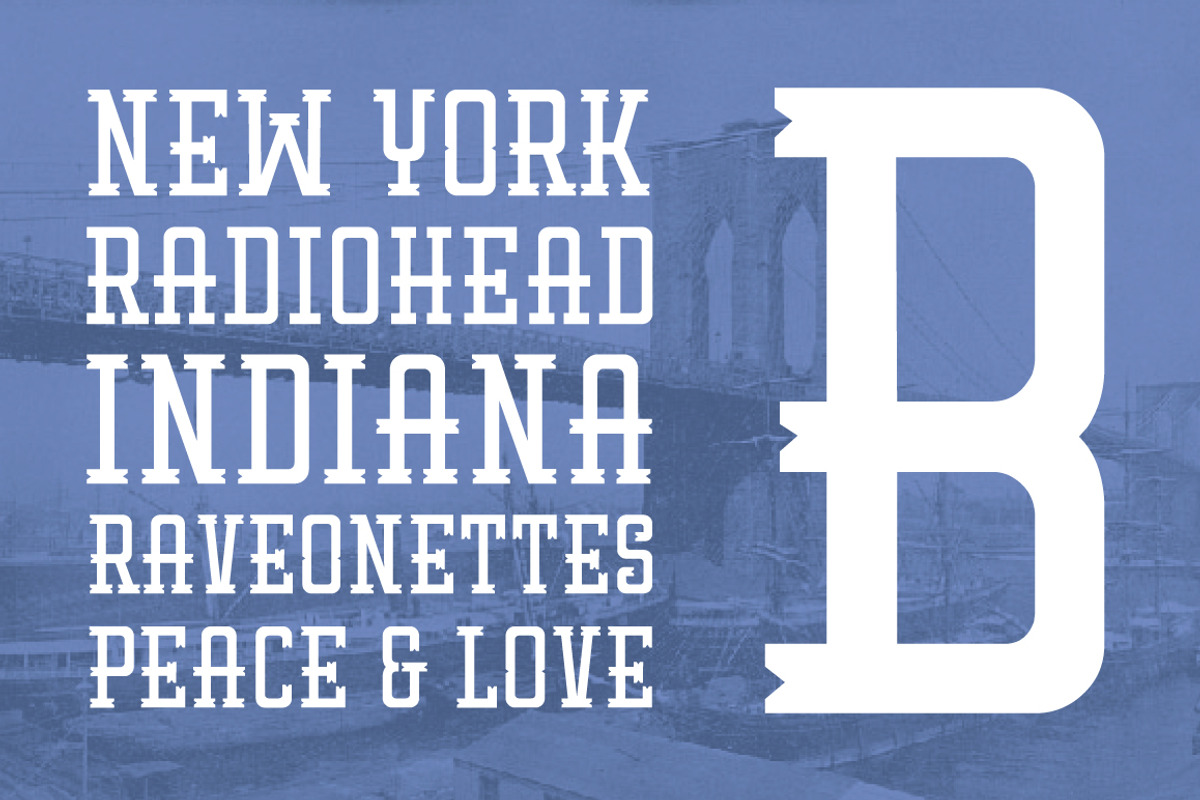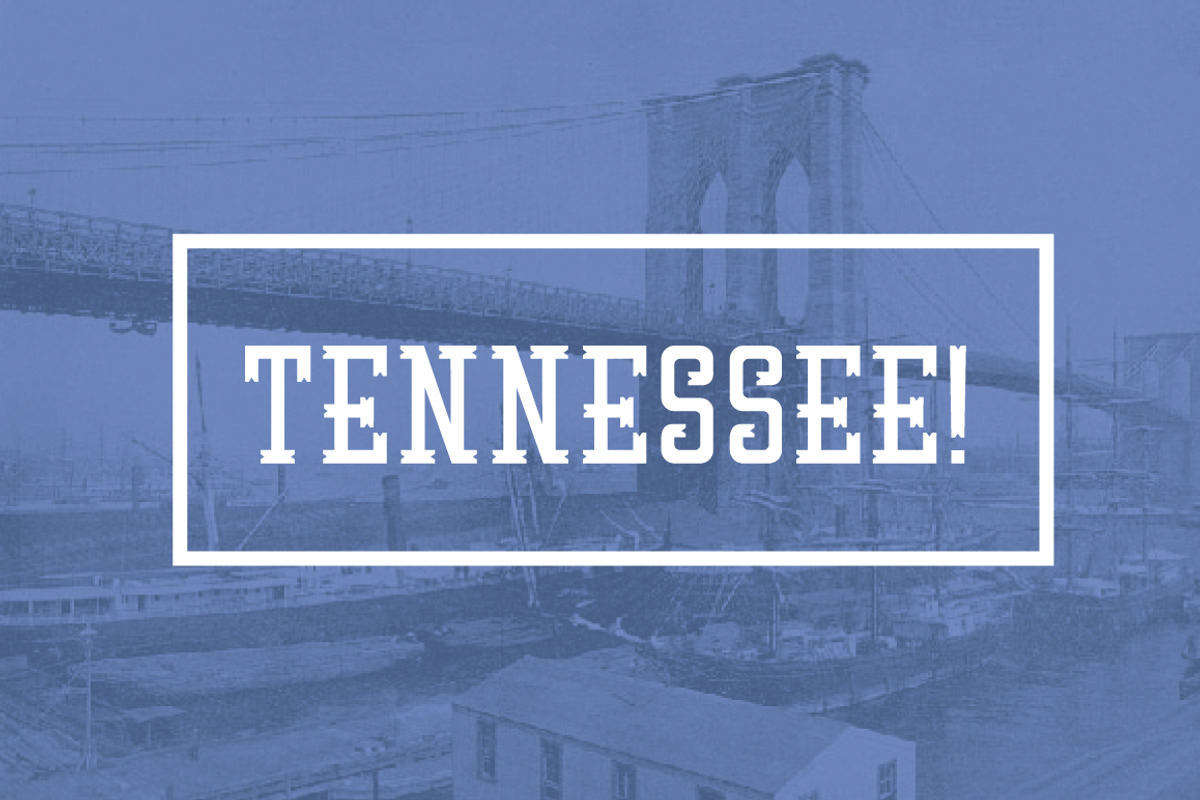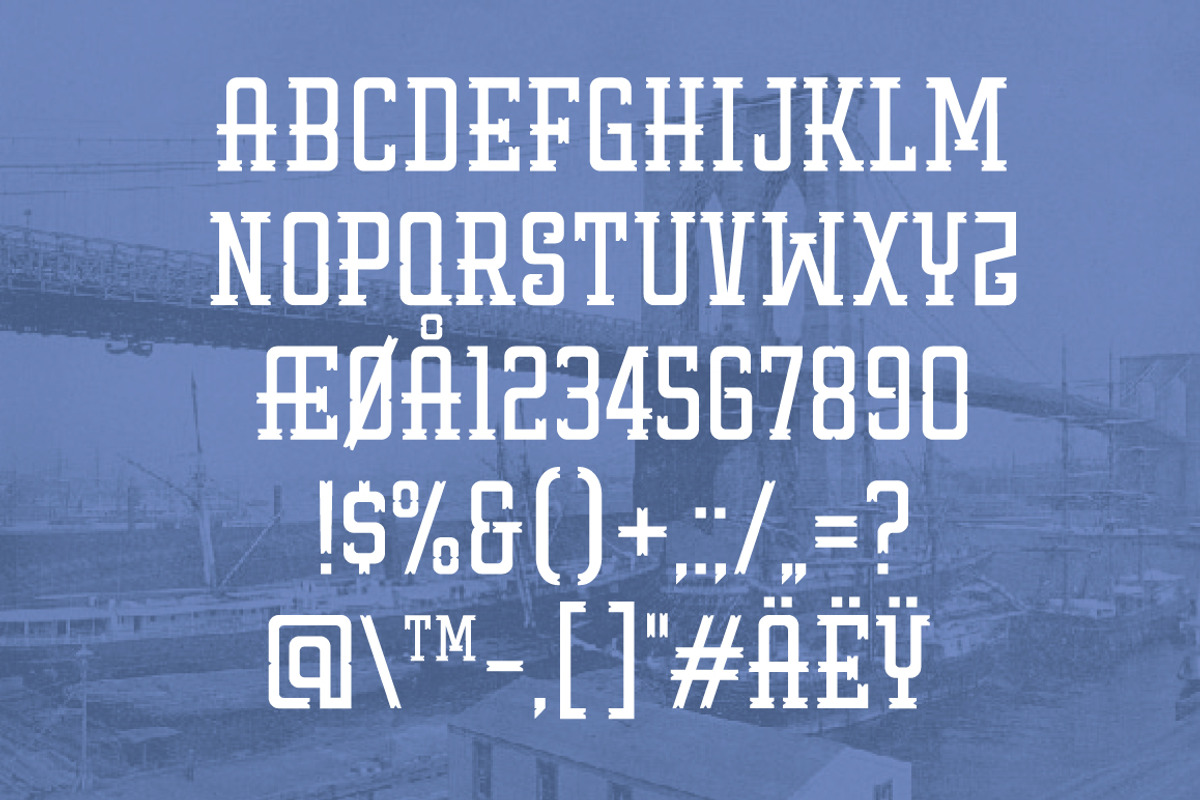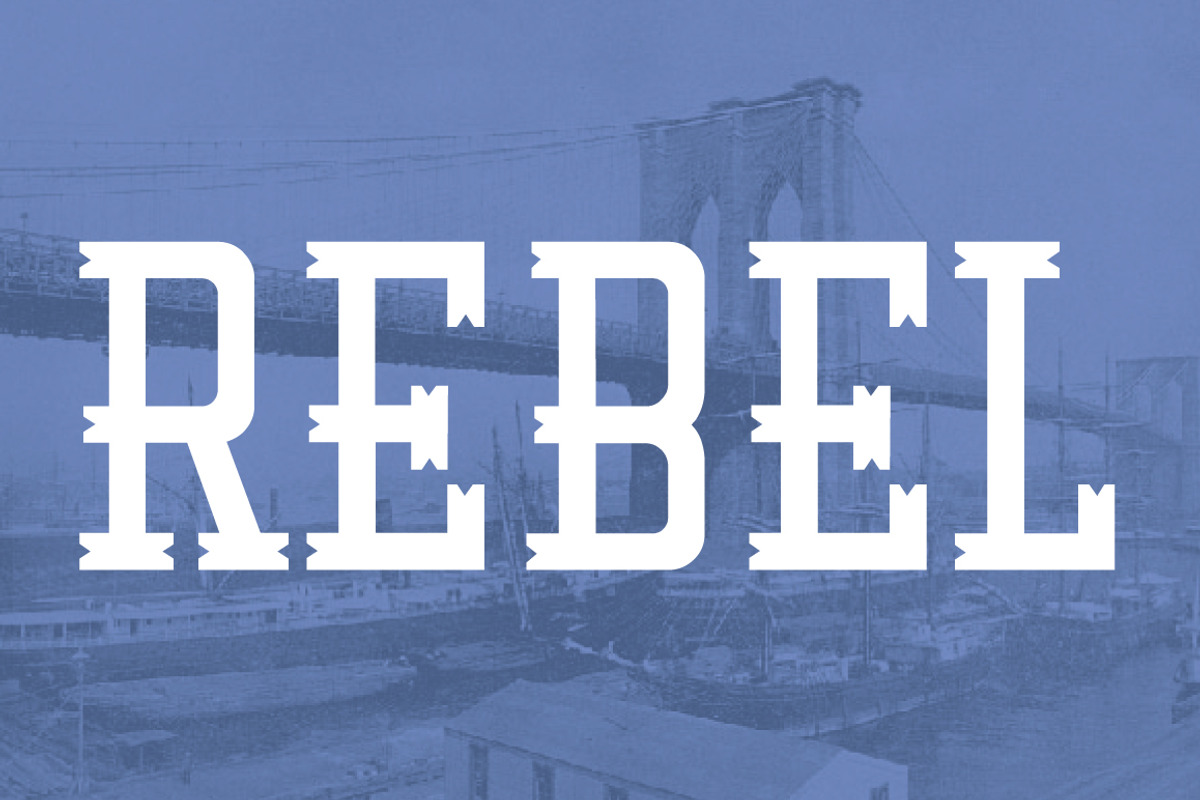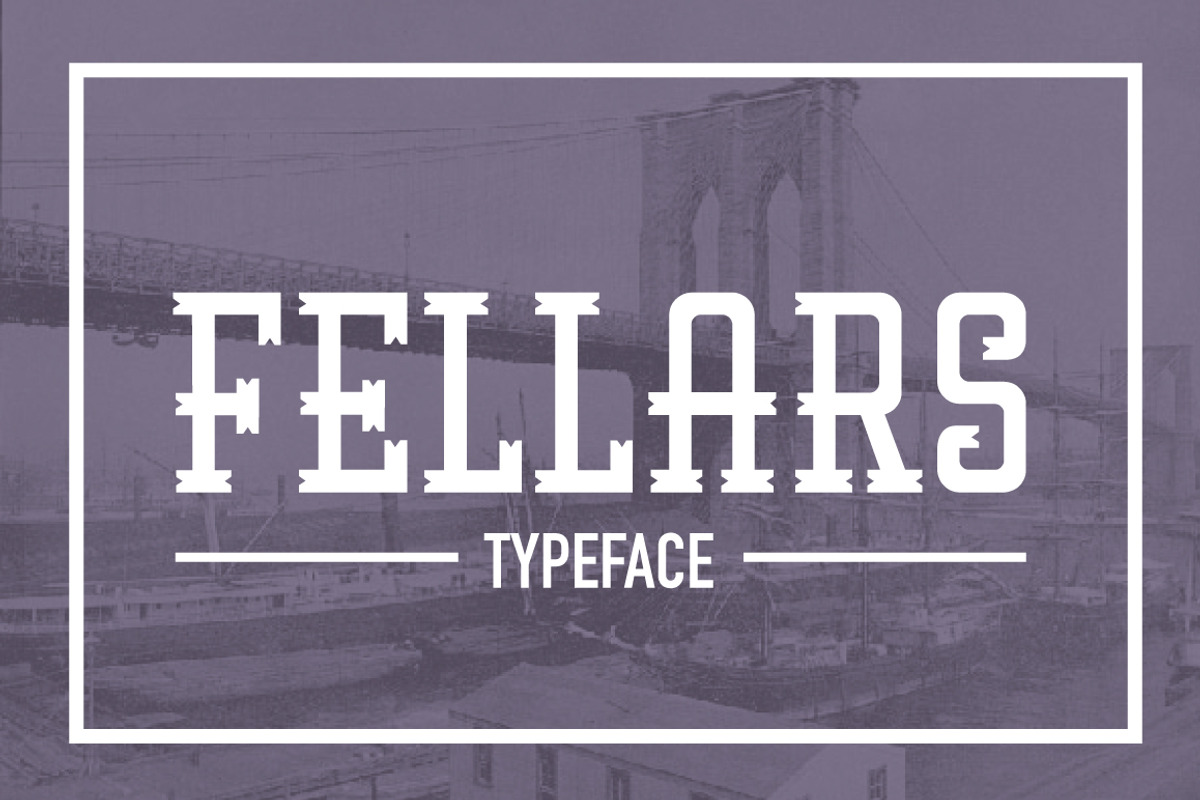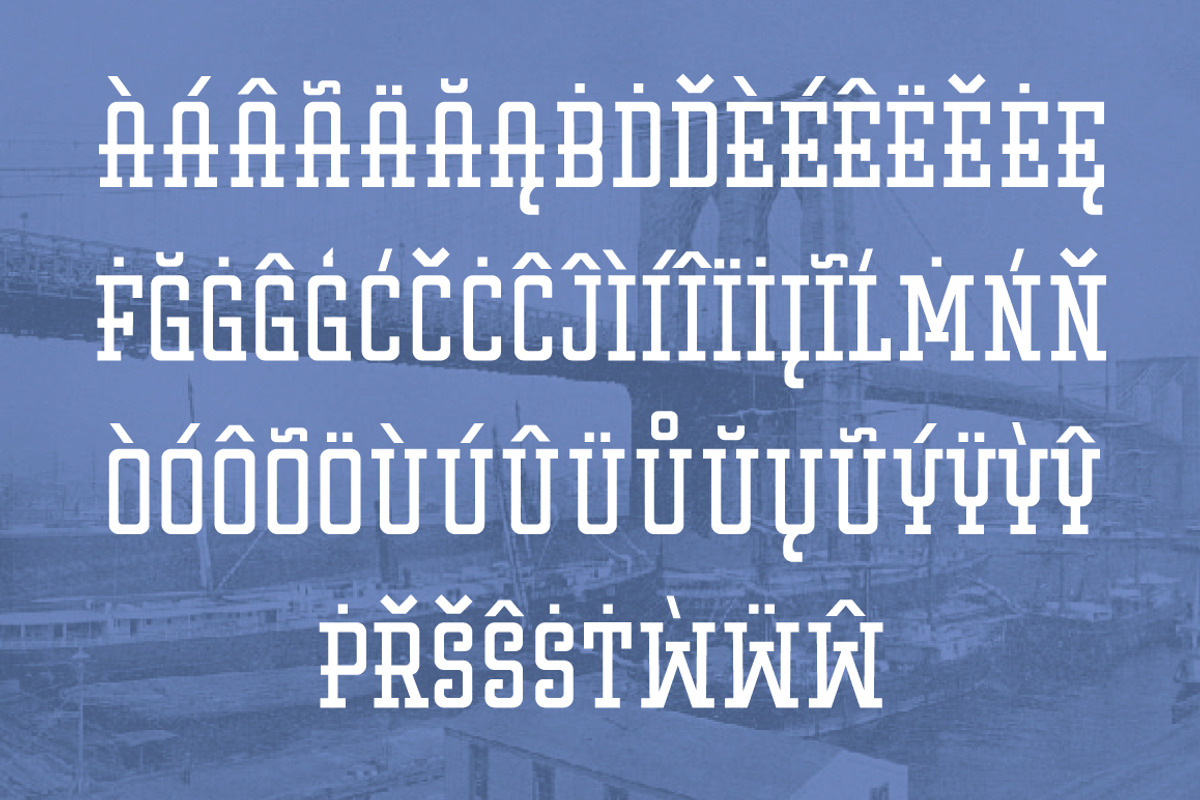
Fellars Typeface
Fellars Typeface by Jan-Christian Bruun is a font selected for branding, posters, packaging, typography.
Why Fellars Typeface is worth a look
Fellars Typeface by Jan-Christian Bruun fits naturally into Branding, posters, packaging, typography.